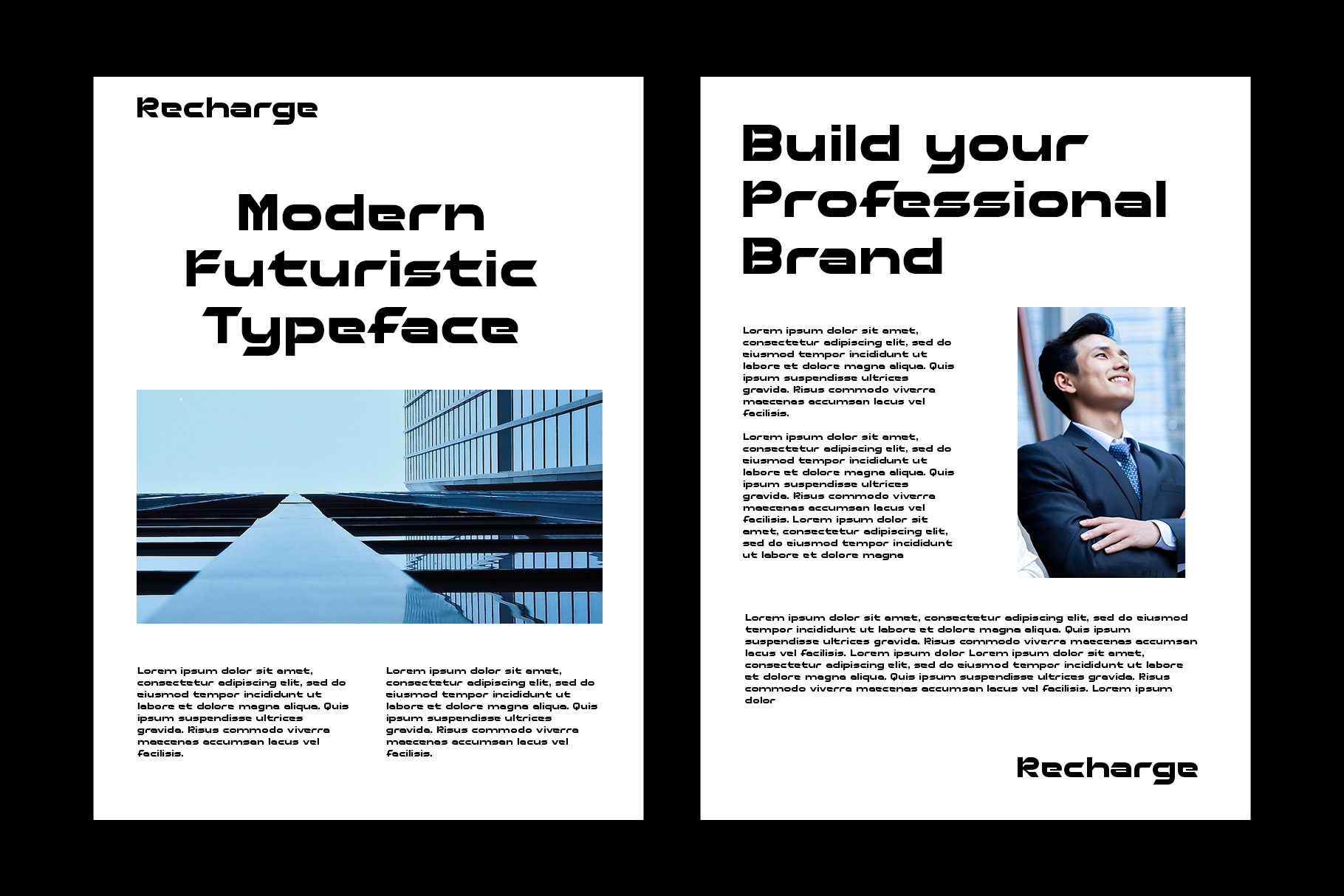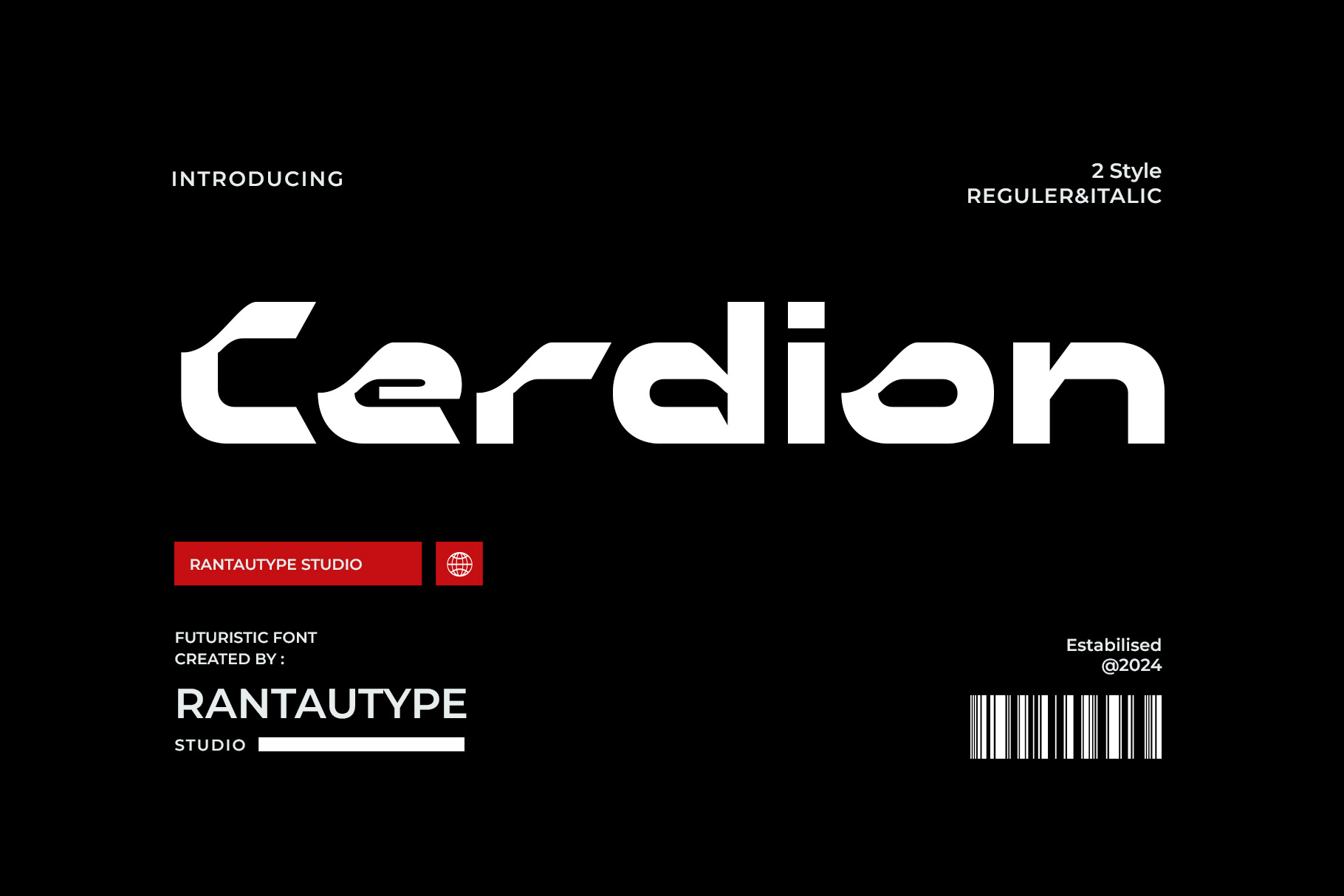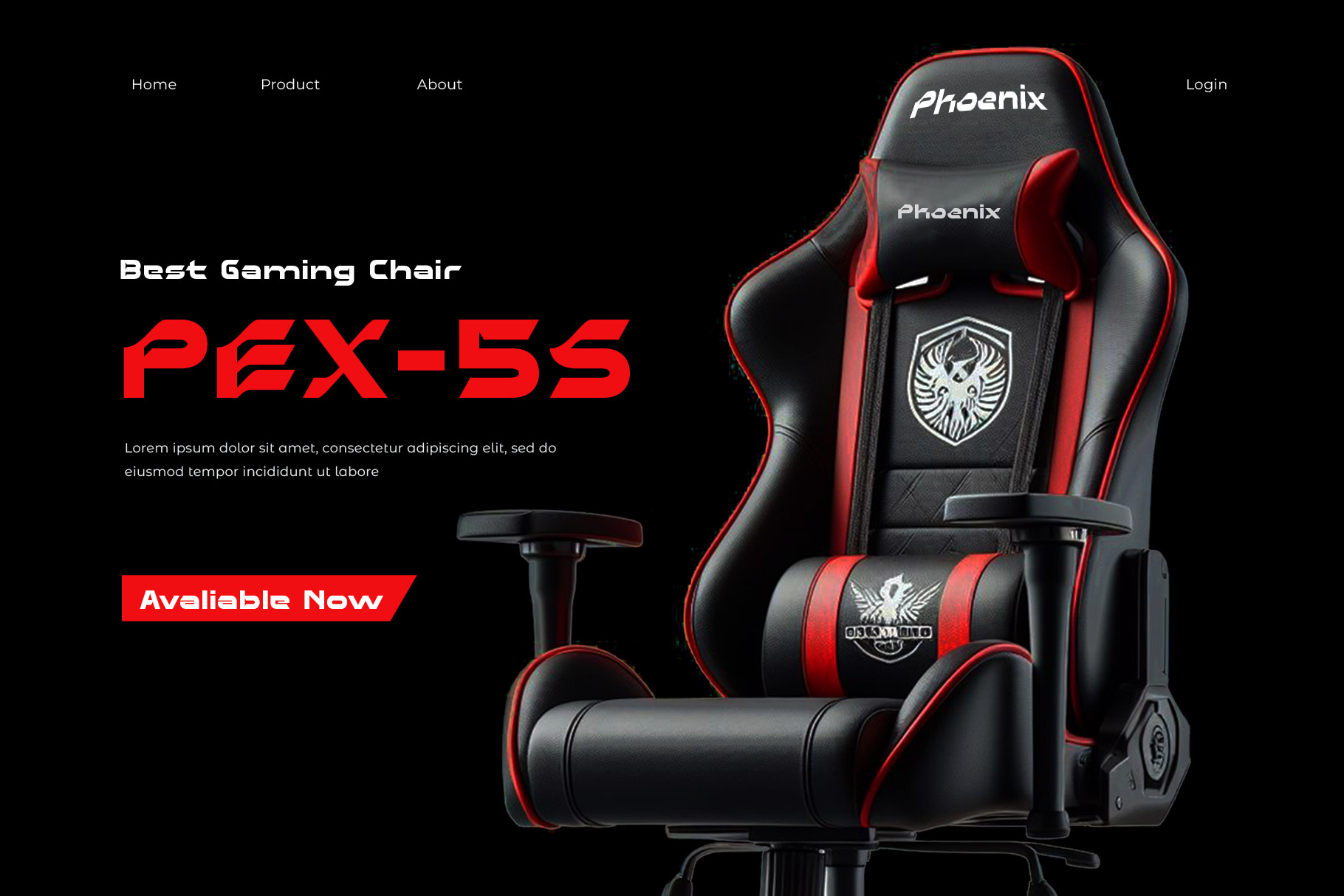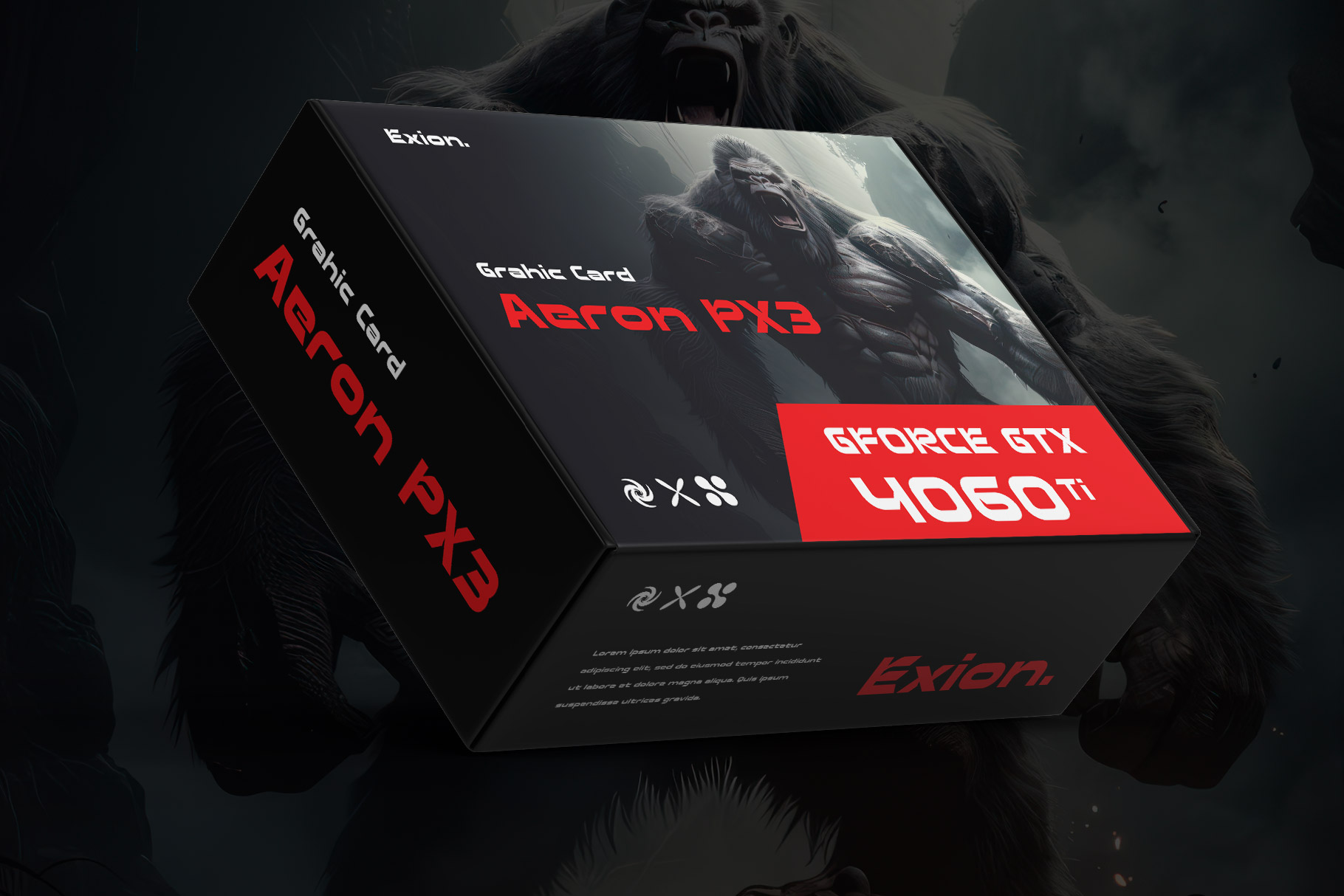
Cerdion Futuristic Font
Cerdion is futuristic font with unique shape. Cerdion inspire by modern era with evolution technology growing fast, role of the “cerdion” font will be able to help you create an attractive design project.
Cerdion is a perfectly choice for any creative endeavor, chic, lifestyle design such as logos, advertisements, stationery, branding project, display and magazine, invitation, corporate brand, product design, label, business project and many other project with futuristic touch.